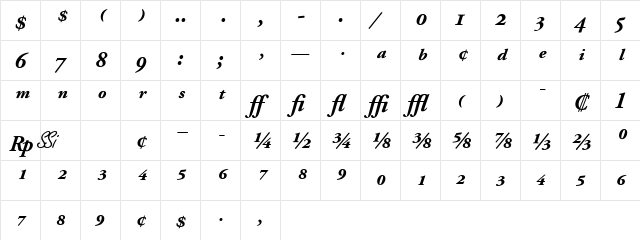
Garamond Pro Black SSi Bold Italic Font Preview
Design Context for Garamond Pro Black SSi Typeface
Garamond Pro Black SSi is a composed and adaptable typeface that performs quietly and consistently across a wide range of design contexts. Its italic angle brings a sense of urgency and motion to the letterforms. The heavy weight commands attention and anchors typographic hierarchies.
Pro Tip: Try Garamond Pro Black SSi for annotation and caption copy alongside an upright companion — the contrast in angle creates a dynamic but ordered typographic system.